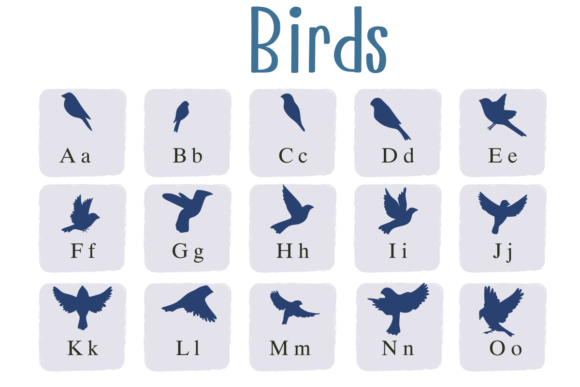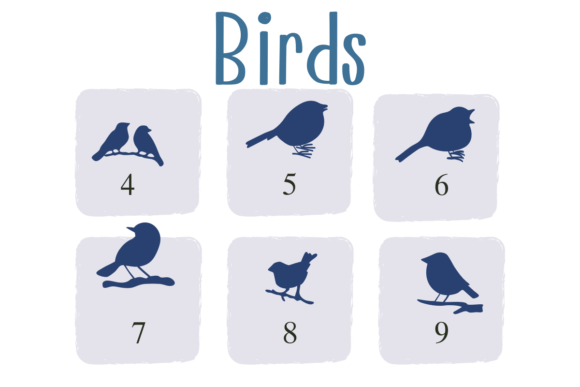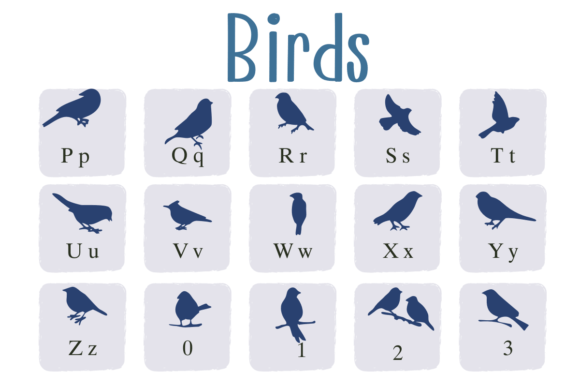
Birds Font
Meet Birds, a dingbat font featuring a collection of bird silhouettes. This font is packed with various bird shapes that you can easily insert into your text. Whether you’re creating invitations, posters, or just adding a touch of nature to your designs, Birds font makes it simple and fun. Perfect for bird lovers and anyone wanting to add a whimsical touch to their projects.